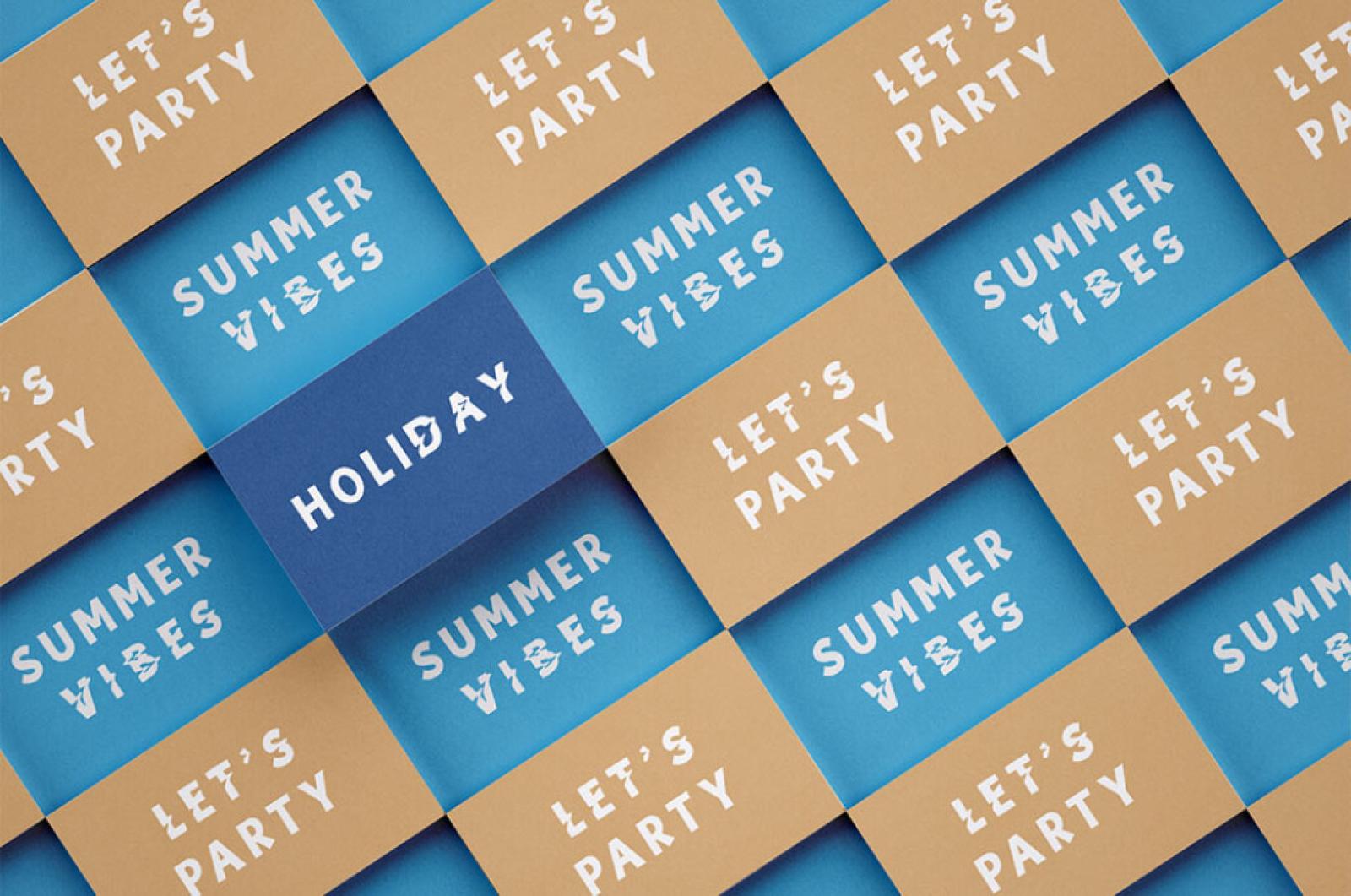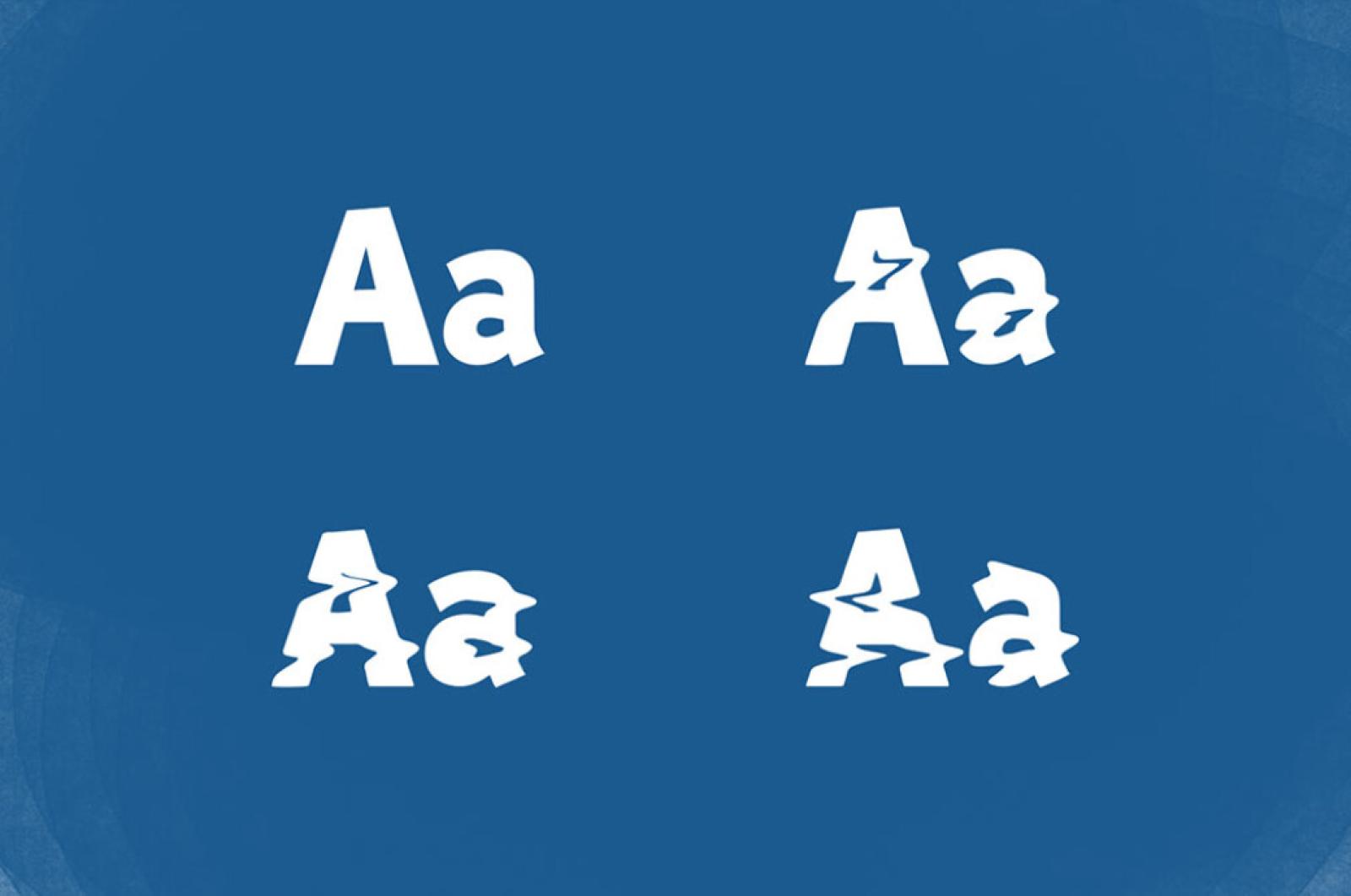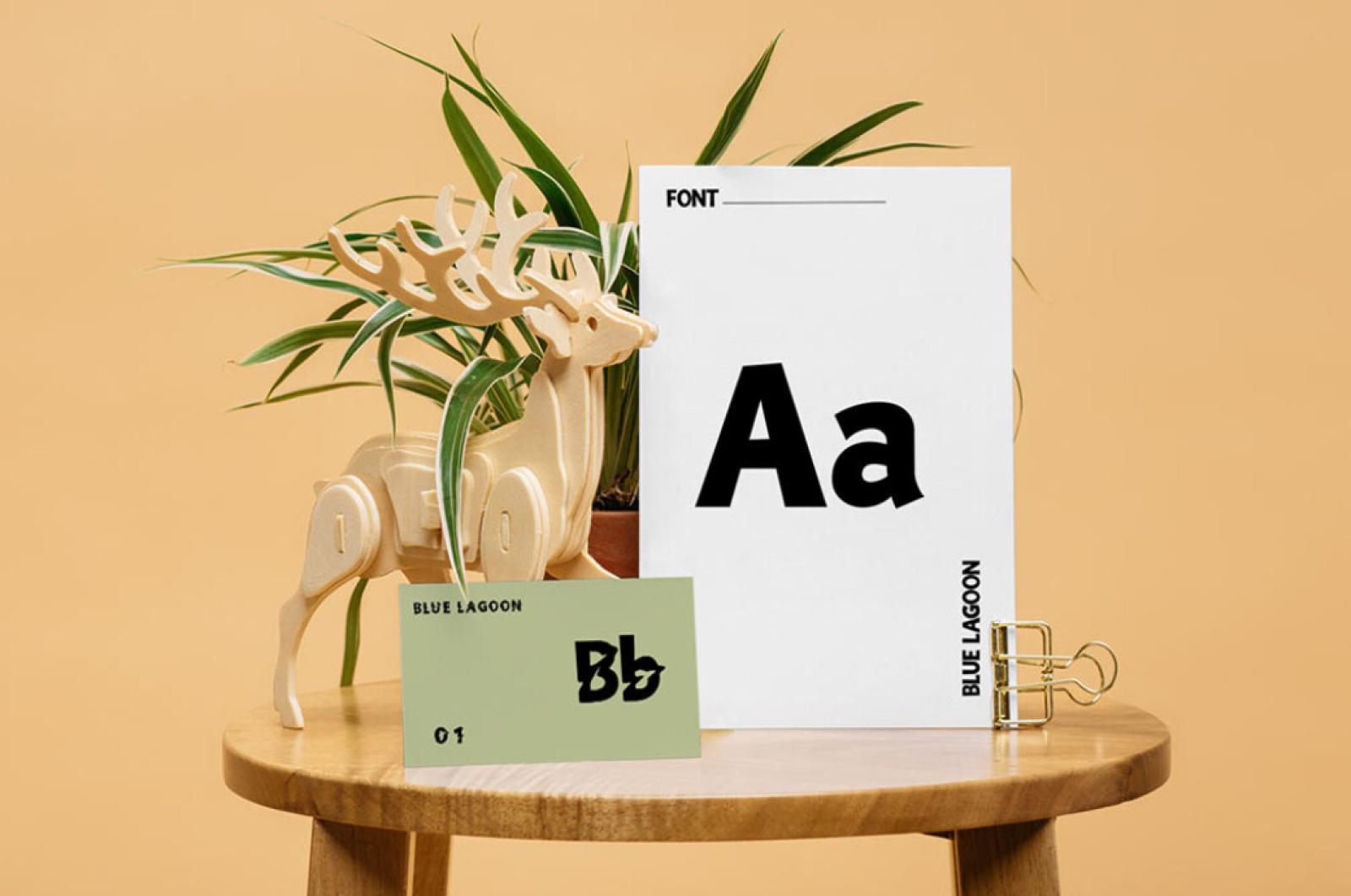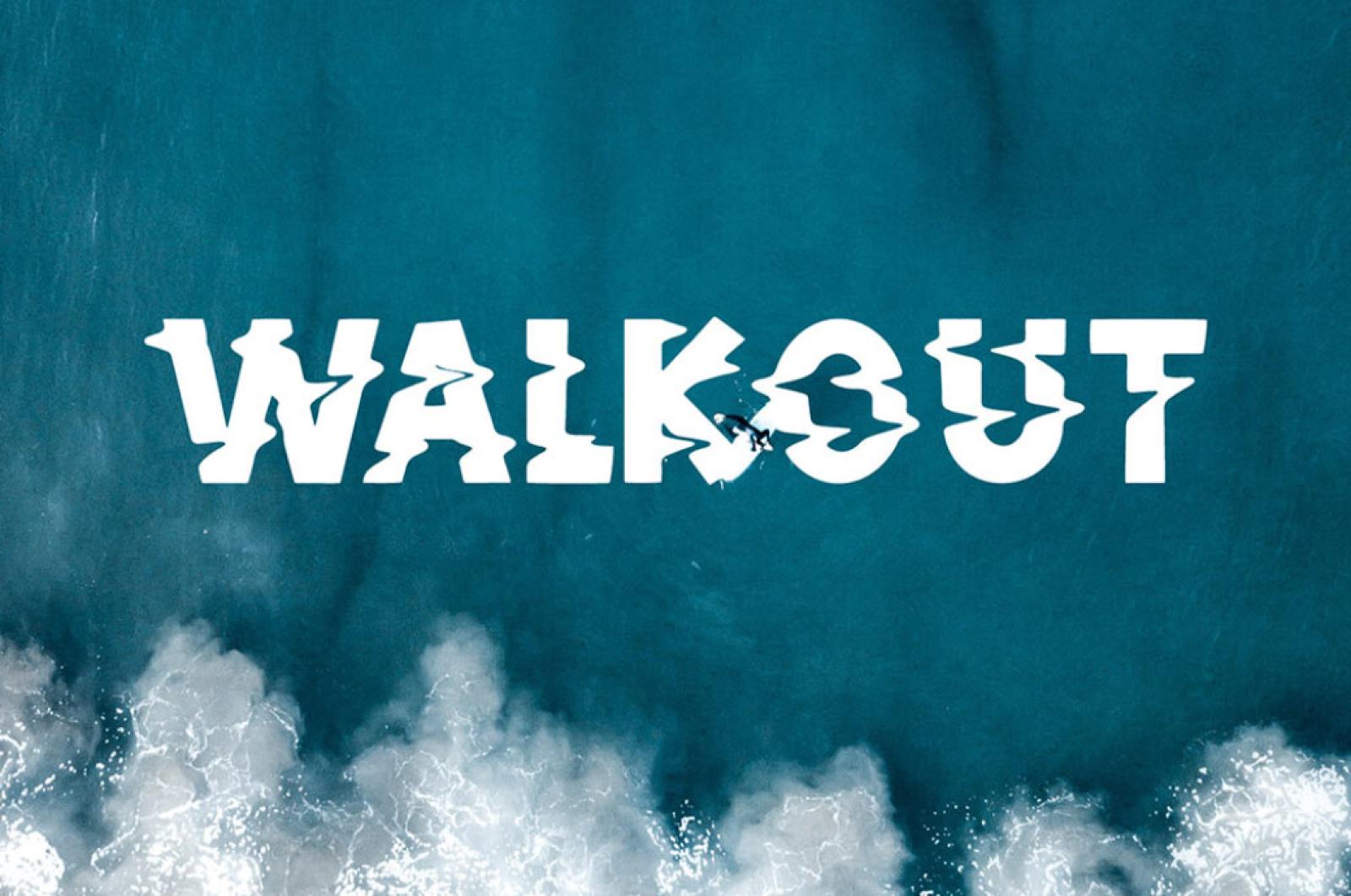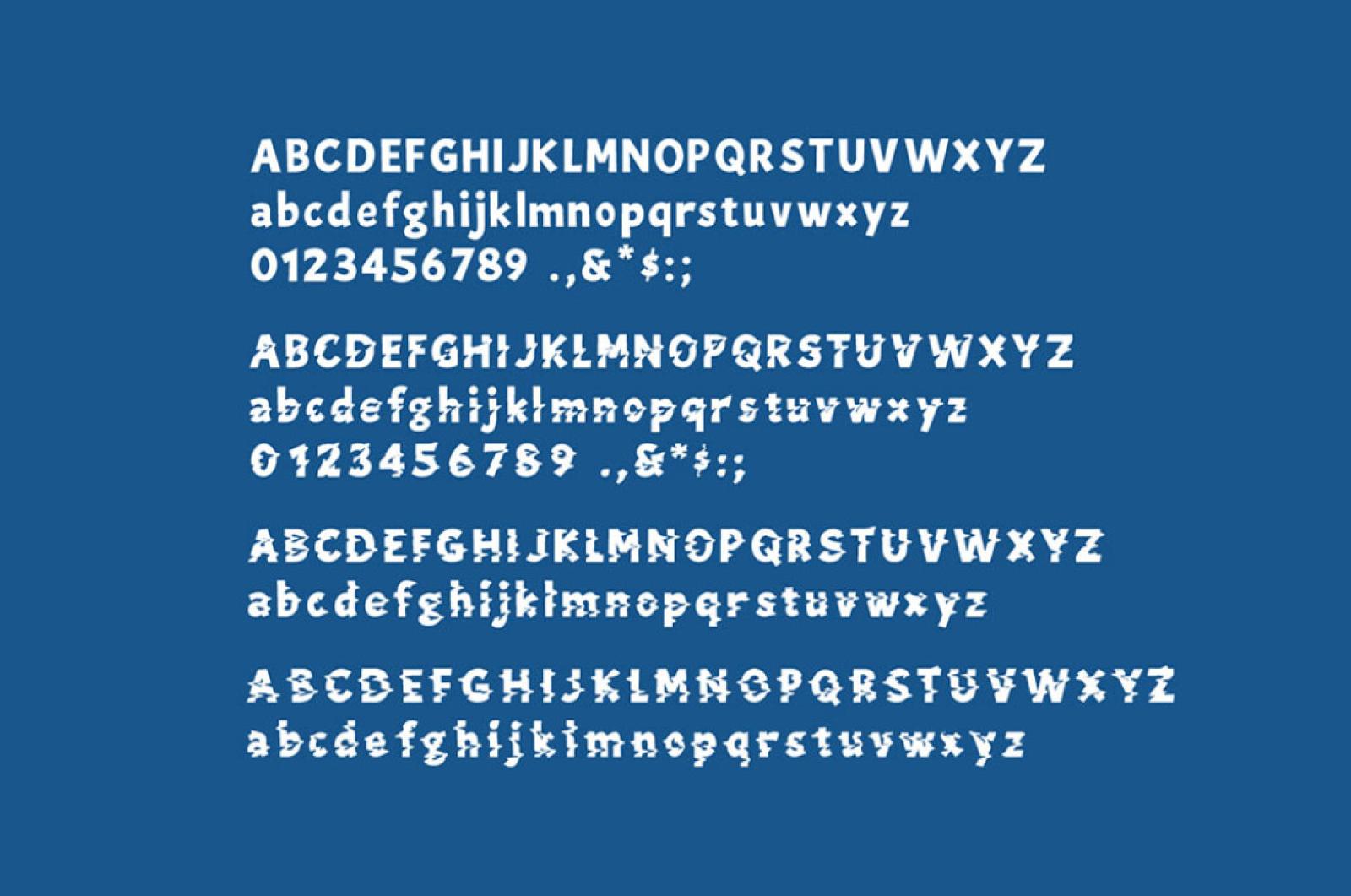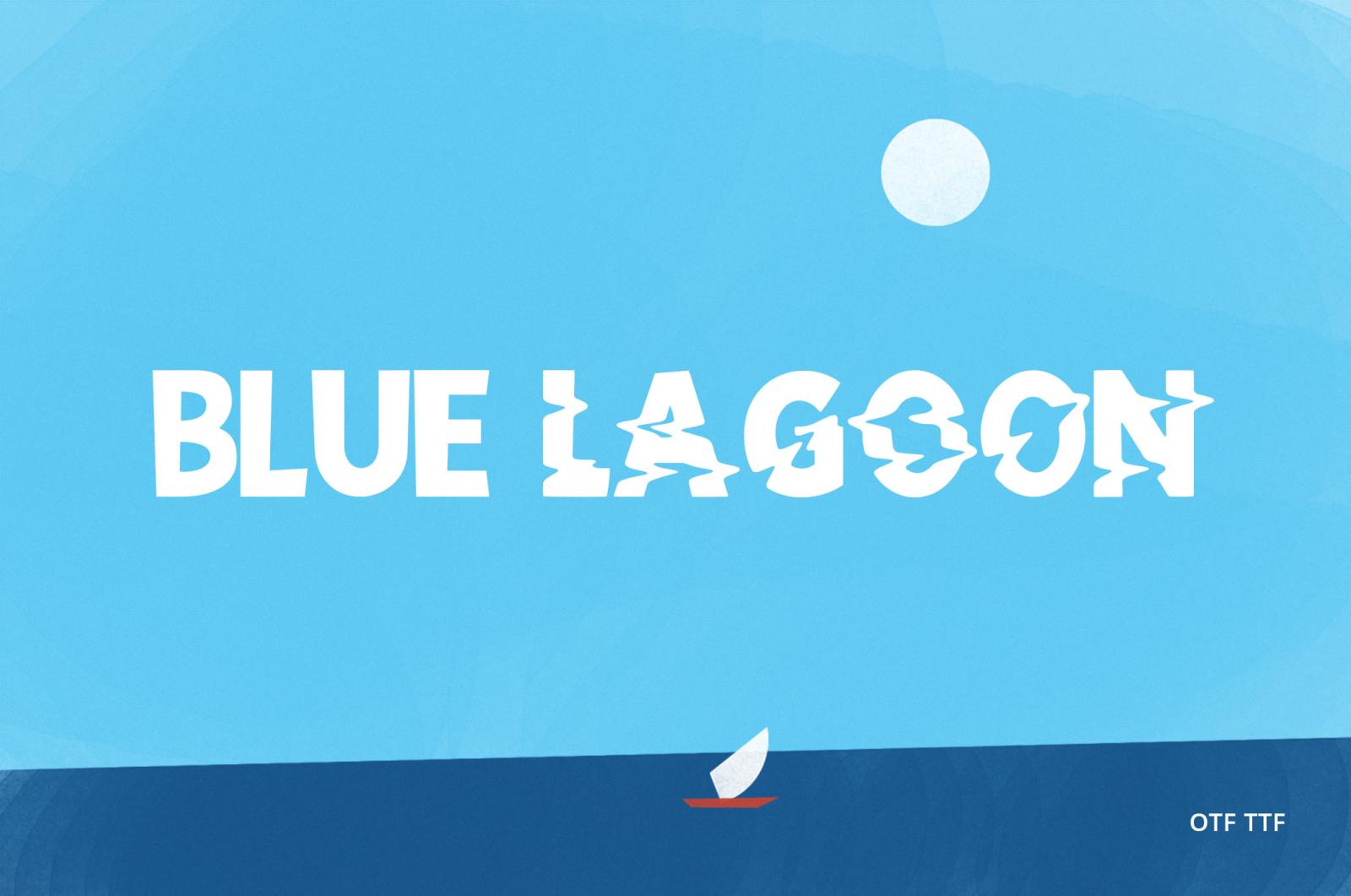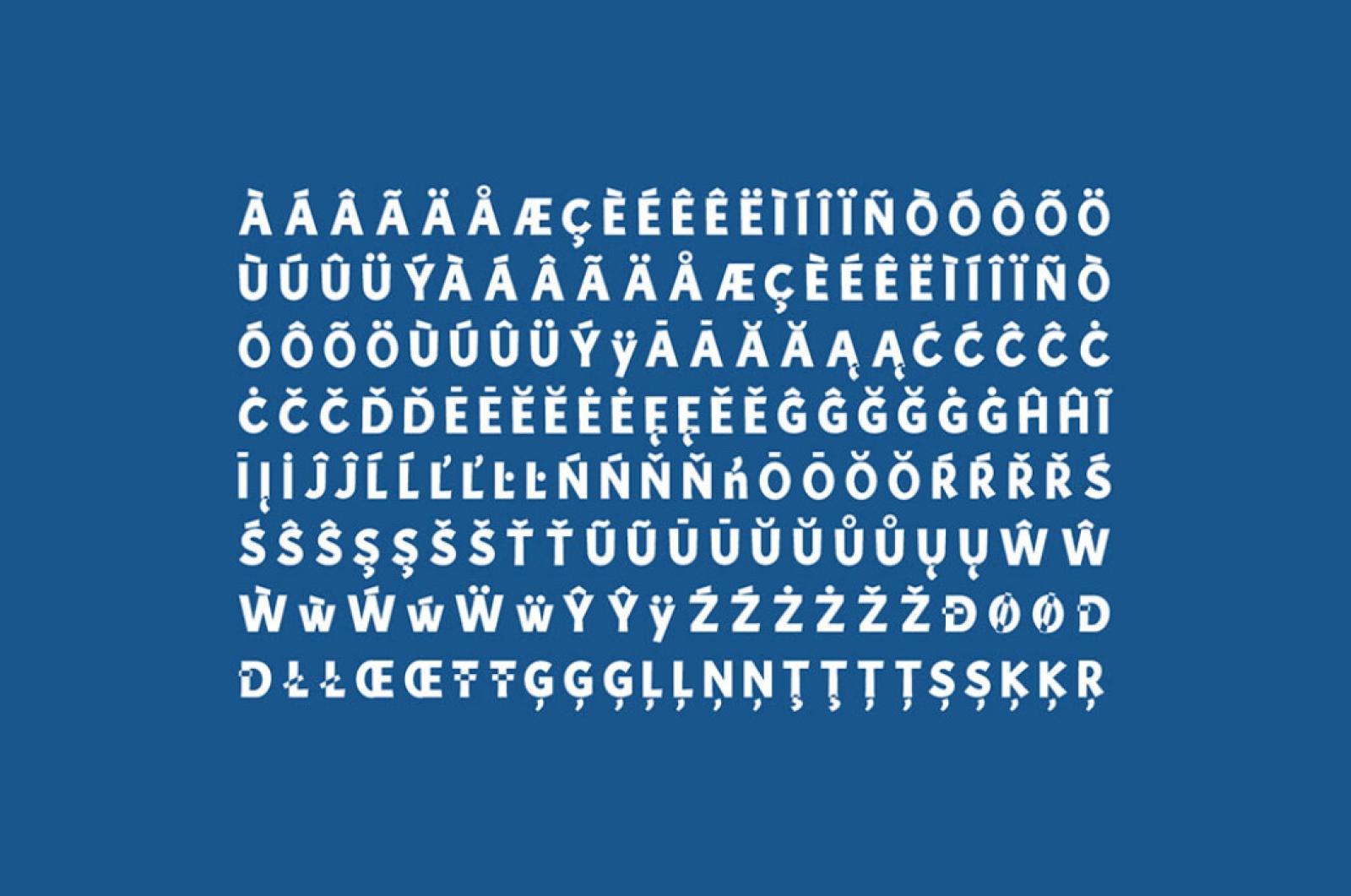
Blue Lagoon Decorative Font
Like the cold drops of water freshen up your face and body, this decorative font does the romantic magic with your designs by bringing the summer breeze and lightness to it. Feel enamored yet?
Can you see the beautiful water ripples hidden in the characters of this typeface? Their soft distortion is tangible to look at when you write the phrases with it. The font supports the following file types (OTF & TTF), and adjusted to any language you speak. Dive deep into the lagoon, filled with excellent ideas for logo designs, banners, headers, invitations, posters, and anything you can find there.